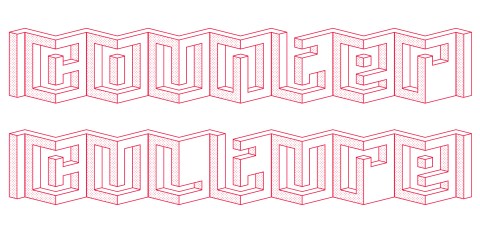
Counter Culture font
My font Counter Culture was a winner in the Fontstruct Reverse Competition. It can be downloaded for free from the fontstruct website (requires login) and comes with a non-commercial no derivatives creative commons licence. Counter Culture was also featured in the Typography category of the Behance Graphic Design Gallery.